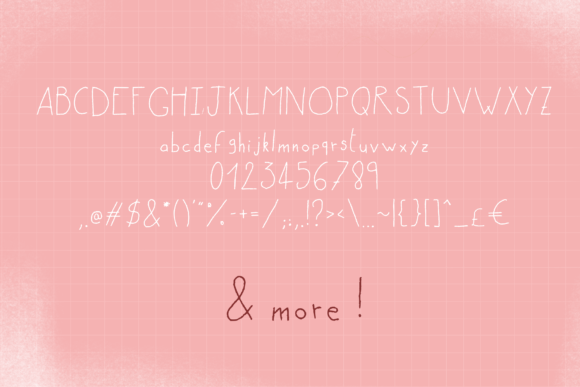
HomeScript FontsNonna Font Script Fonts Nonna Font FacebookXPinterestWhatsApp Nonna Font Poster 2 About Nonna Font Nonna is your Grandma’s favorite font. Get inspired by its cozy handmade feel. DOWNLOAD ON CREATIVE FABRICAThis font is sold and delivered by Creative Fabrica. Font Canyon may earn a commission if you buy through this link. People also explored Adena Margaret Pioneer Font Vetto Rosella Font Lonia Latter Font Mahligai Font Right on Font Sweety Candy Font Minicomputer 279 0 TagsNonna Font Previous articleHellena FontNext articleBernitha Angelica Berkeley Duo Font LEAVE A REPLY Cancel reply Comment: Please enter your comment! Name:* Please enter your name here Email:* You have entered an incorrect email address! Please enter your email address here Website: Save my name, email, and website in this browser for the next time I comment. Personal Use Free Folgore Personal Use Free Read more about this font Charlie Personal Use Free Read more about this font Little Things Duo Personal Use Free Read more about this font Cline Personal Use Free Read more about this font BLOG Free vs Paid Fonts: Why Investing in Premium Fonts Is Worth It Free vs Paid Fonts: Why Premium Fonts Are Worth It in 2025 The debate of free vs paid fonts continues in the design world. While... Top 7 Google Fonts Alternatives for Faster and Privacy-Friendly Web Design (2025) To increase your work productivity, choose the most readable fonts. Free Fonts Risk: Why Free Fonts Can Be Dangerous for Designers